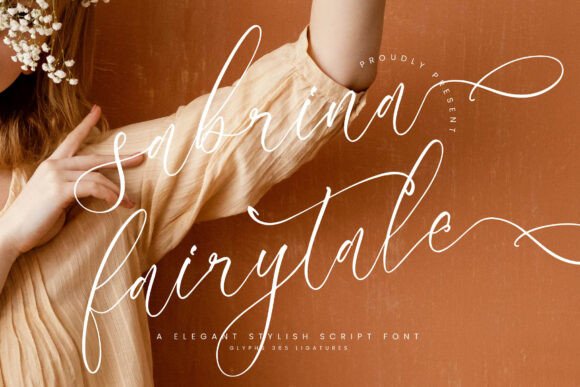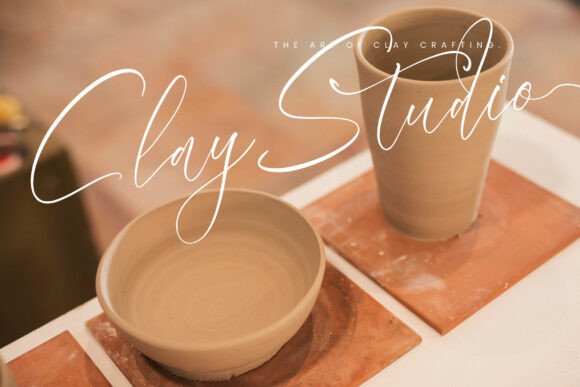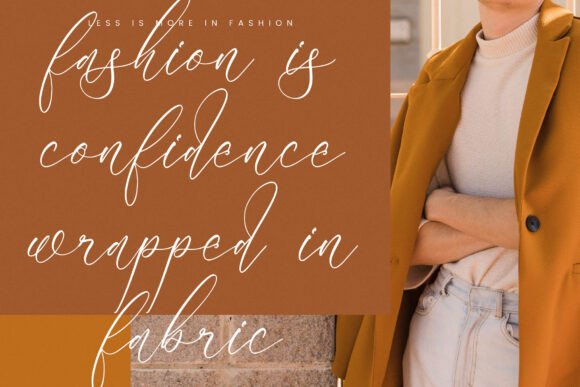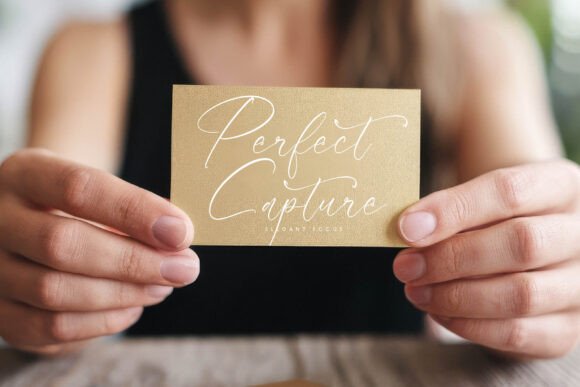
Sabrina Fairytale Font
About the Sabrina Fairytale Font
Elevate your designs with Sabrina Fairytale Font, a font that combines sophistication with readability. Elevate your designs with Sabrina Fairytale, a graceful and luxurious script font that exudes romance and sophistication. With its flowing curves, delicate swashes, and exquisite ligatures, this font is perfect for wedding invitations, branding, social media, elegant packaging, and heartfelt quotes. Featuring 365 glyphs and multilingual support, Sabrina Fairytale adds a touch of enchantment to any project.
Sabrina Fairytale’s elegant, flowing forms make it ideal for headlines, short text blocks on invitations or packaging, and logos requiring a touch of luxury. It excels in applications where visual appeal is paramount, such as branding for high-end products or sophisticated events. However, its delicate nature makes it less suitable for body text or UI elements where readability is crucial. Avoid using it for lengthy paragraphs or small sizes.
This script font pairs well with clean sans-serifs like Montserrat or Lato for a modern contrast, or with a classic serif such as Garamond or Playfair Display for a more traditional feel. A geometric sans-serif like Futura could also provide a striking counterpoint to Sabrina Fairytale’s organic curves.
The overall personality of Sabrina Fairytale is sophisticated and romantic, lending itself to brands focused on luxury, beauty, or the arts. Its graceful curves project a sense of refinement and timeless elegance.
Sabrina Fairytale Font Usage Examples
Sabrina Fairytale Font Example